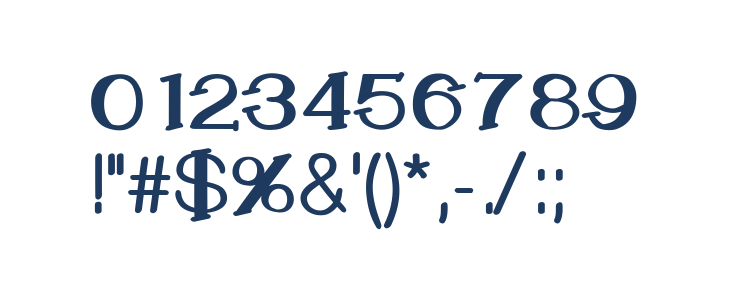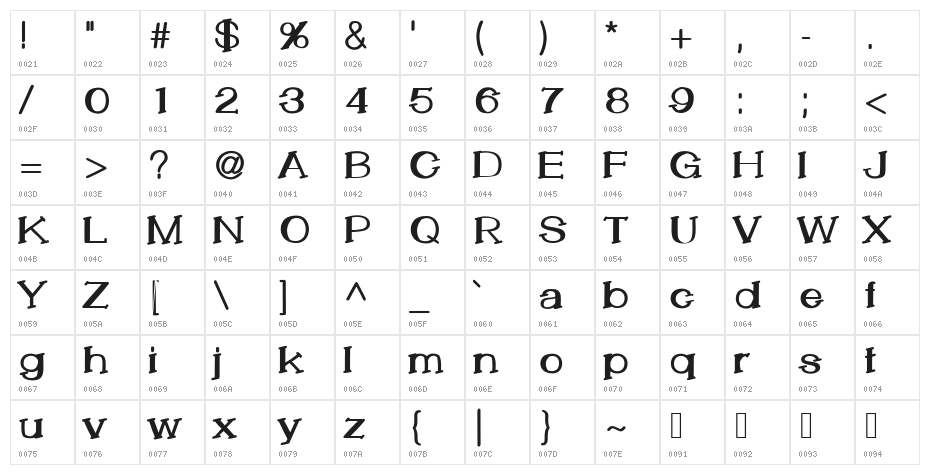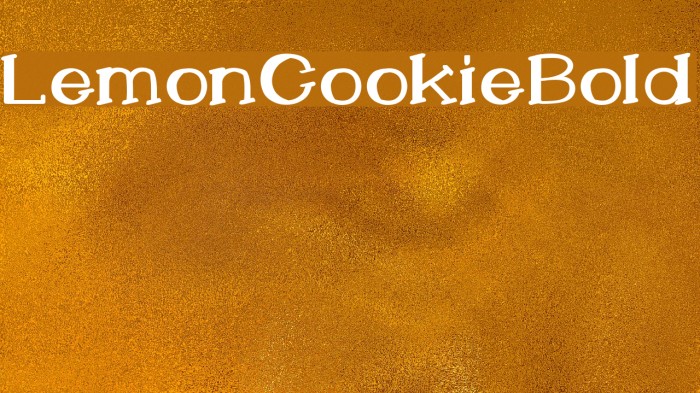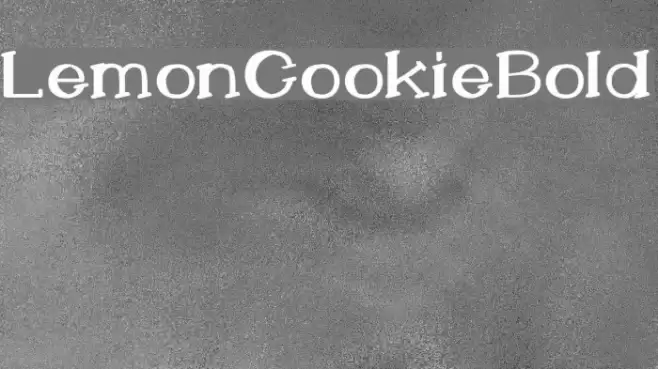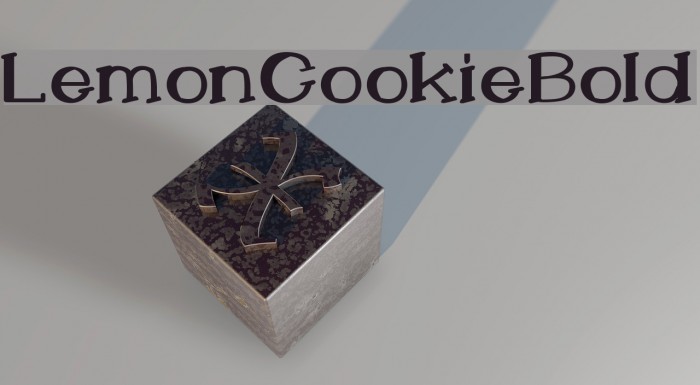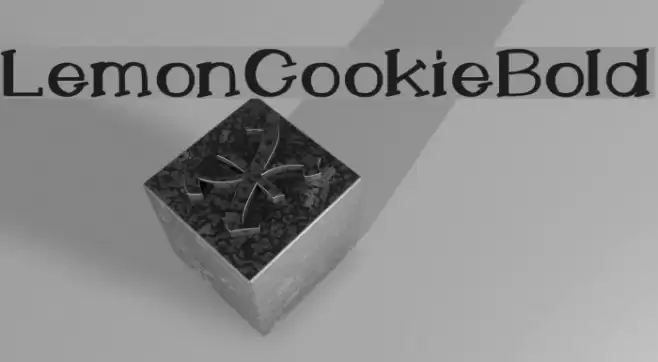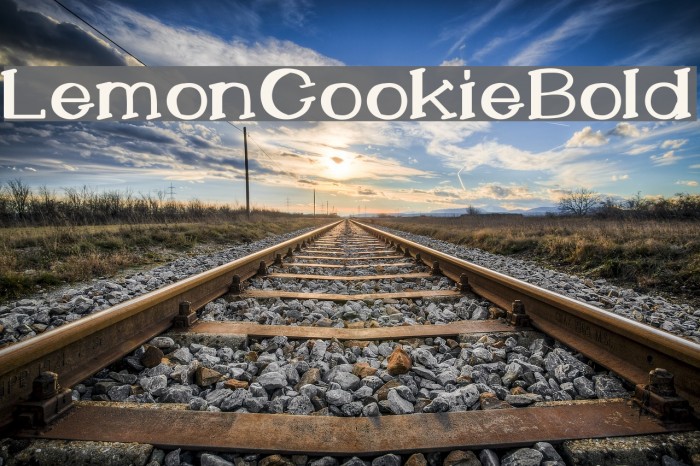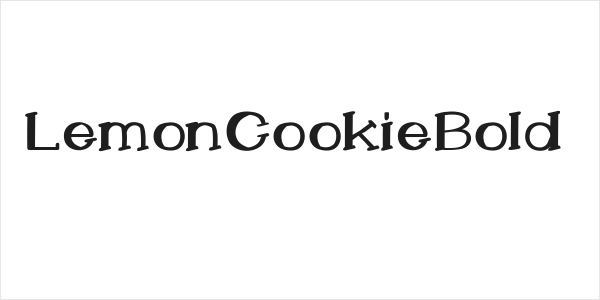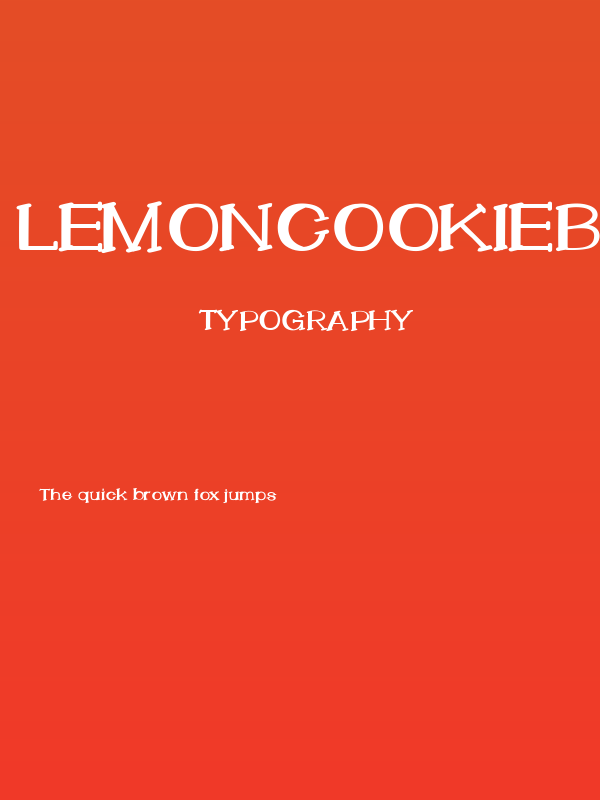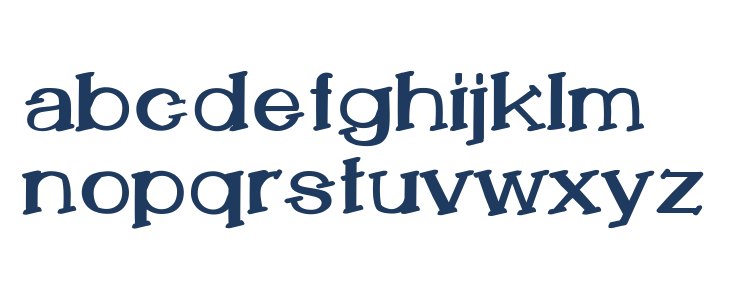
LemonCookieBold Font
LemonCookieBold Description
This font features a playful and bold design with a distinctive, quirky style. The characters have a unique, slightly irregular shape that adds a whimsical touch. The uppercase letters are bold and prominent, while the lowercase letters maintain a consistent style with a slightly rounded appearance. The numerals are clear and easy to read, with a similar boldness to the letters. Special characters are creatively designed, maintaining the overall playful theme. This font's boldness and unique character make it stand out, perfect for creative and fun projects.
| Overall Style | Playful, Quirky, Fun |
| Proposed Projects | Ideal for children's books, playful branding, creative posters, and fun social media graphics. |